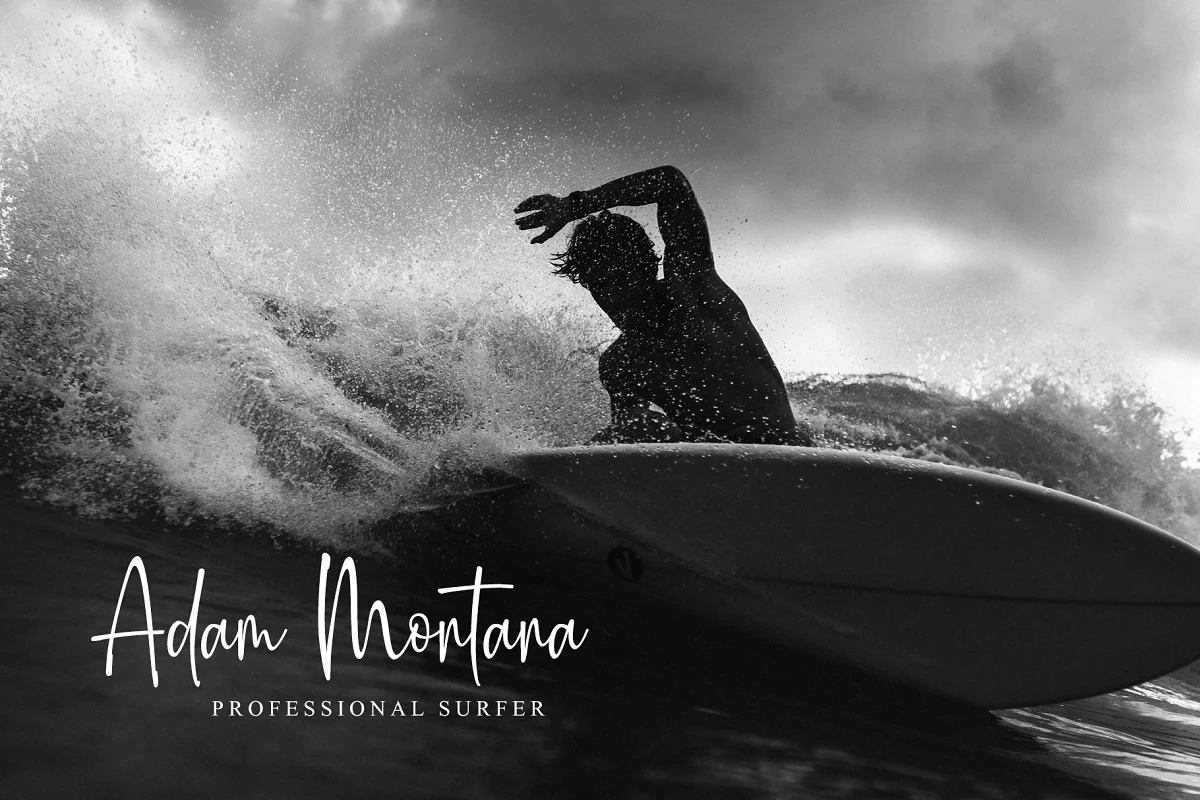
Histerya Font
Histerya Handwritten Font
This font is a new fresh & modern script with a handmade calligraphy style, decorative characters and a dancing baseline! It is PUA encoded which means you can access all of the glyphs with ease! It features a varying baseline, smooth lines, gorgeous glyphs and stunning ligatures. Fall in love with this font and bring your projects to the highest levels.